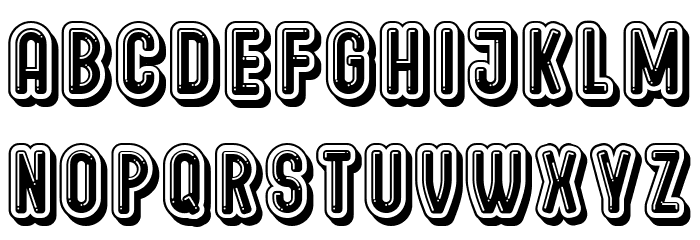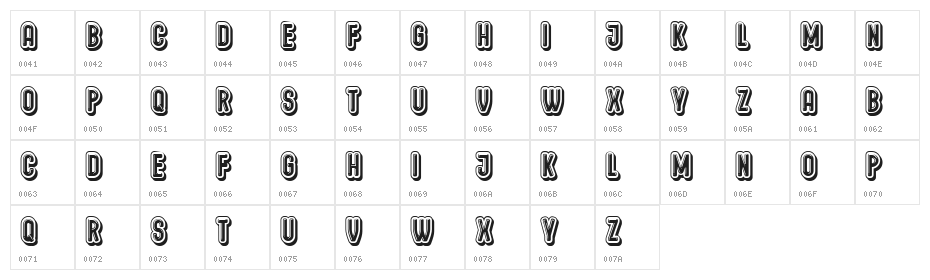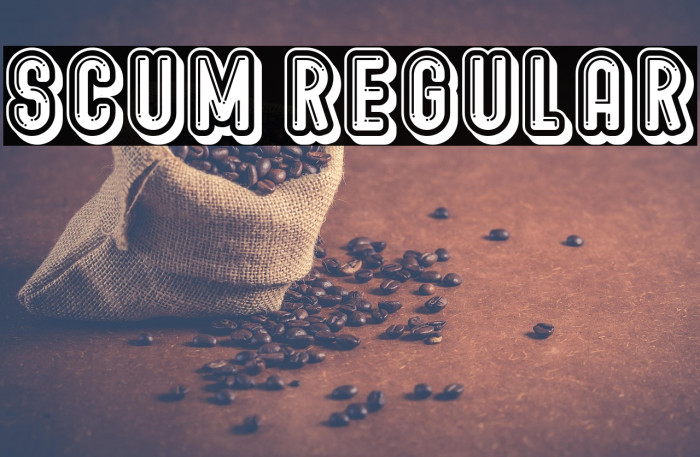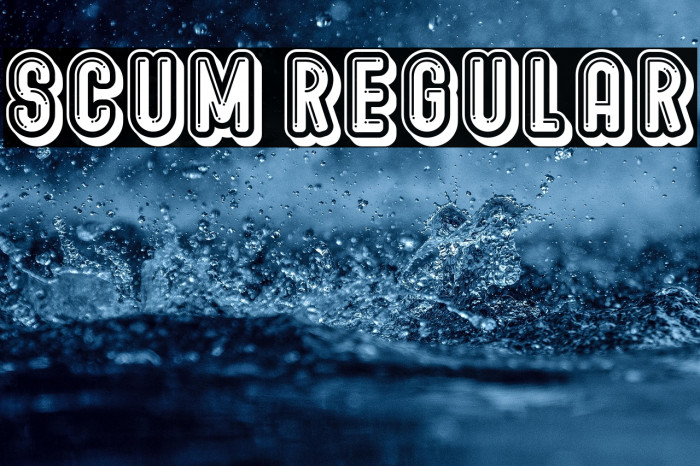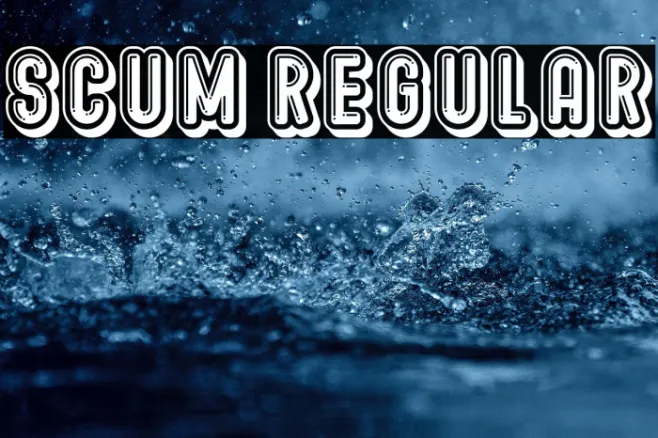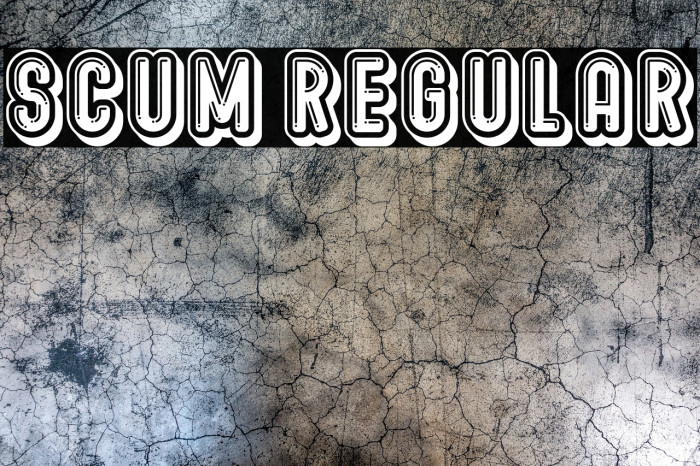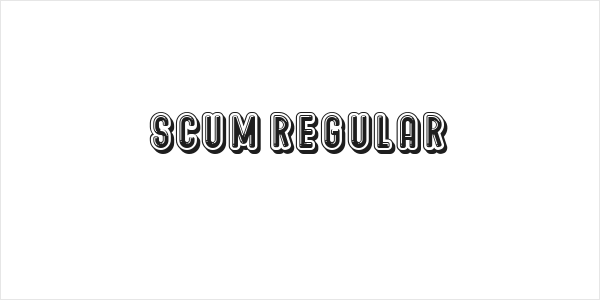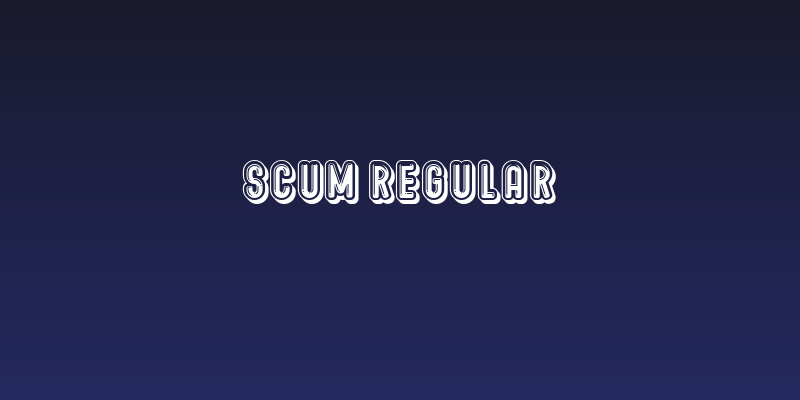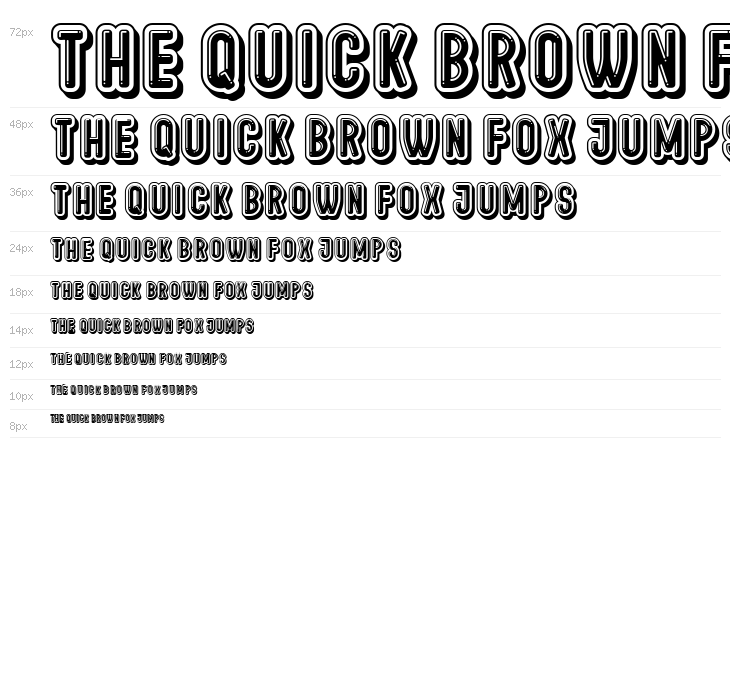
Scum Regular Font
Scum Regular Description
This font features a bold, decorative style with a unique layered effect. Each character is outlined with multiple layers, creating a three-dimensional appearance that stands out. The letters are uppercase, with a consistent width and height, giving them a uniform look. The design is playful yet structured, making it suitable for eye-catching displays. The font's boldness is emphasized by its thick strokes and the shadow effect, which adds depth and visual interest. It is ideal for projects that require a strong, impactful typeface.
| Proposed Projects | Perfect for posters, logos, headlines, and any design needing a striking, bold typeface. |